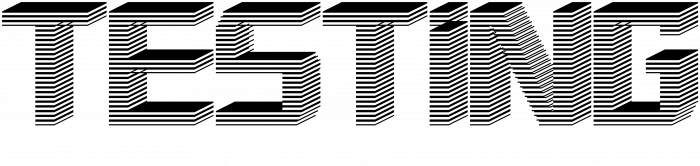
Saytwo
3D Stripes font with shadow or not, this is a simple clean font with a stripes effect
Nice design, beautifully done :) 10/10
wow! coll and very interesing font!
How lovely.
Coolest font!!
really cool